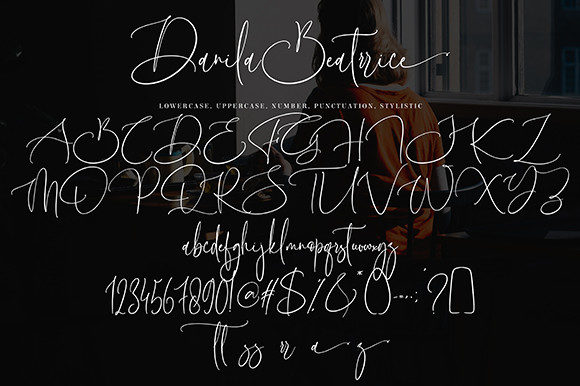
Danila Beatrrice Font
About Danila Beatrrice Font
Danila Beatrrice is a stylish and thin lettered script font. It will add a luxury spark to any design project that you wish to create! This font is PUA encoded which means you can access all of the amazing glyphs and ligatures with ease!